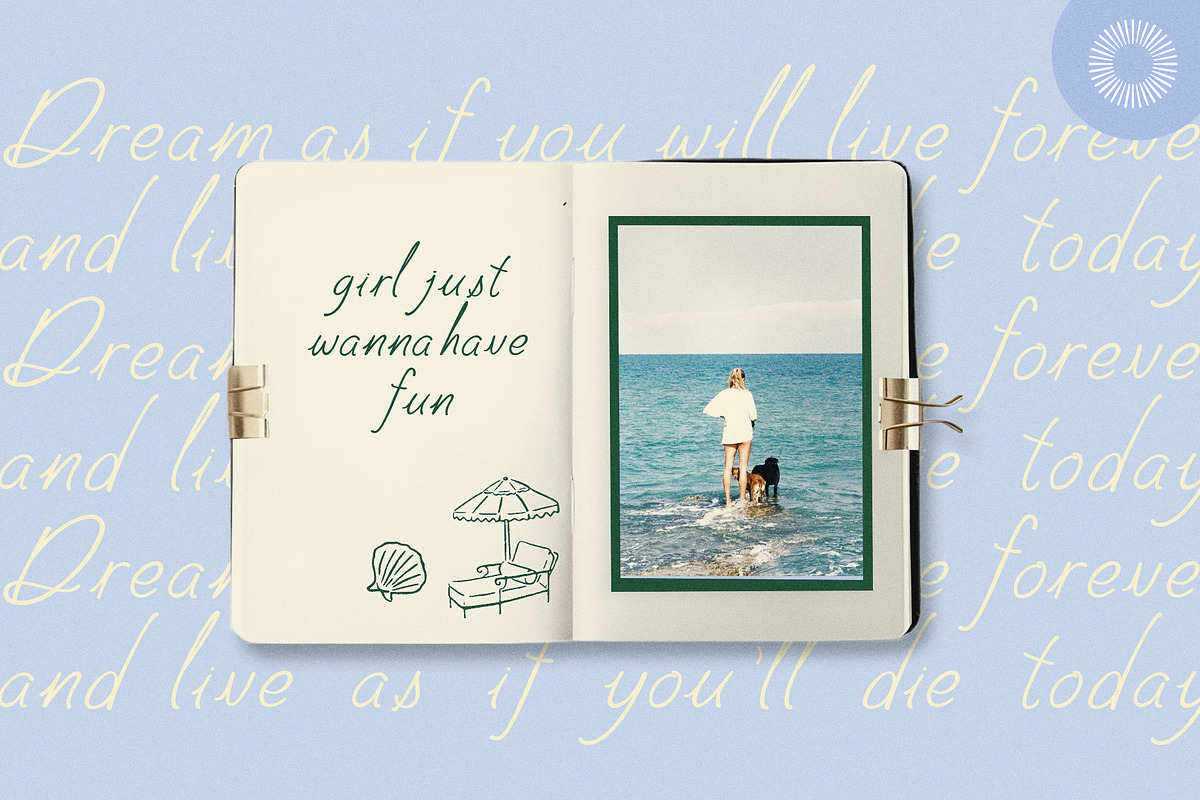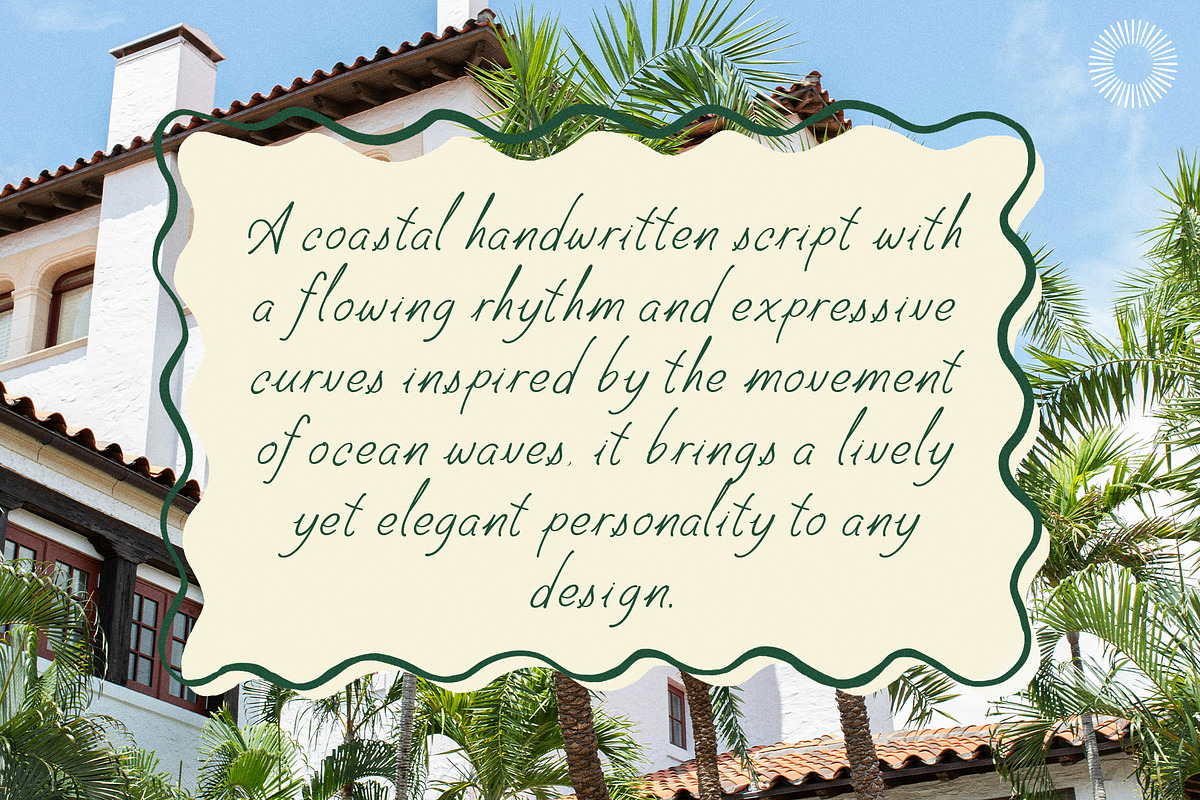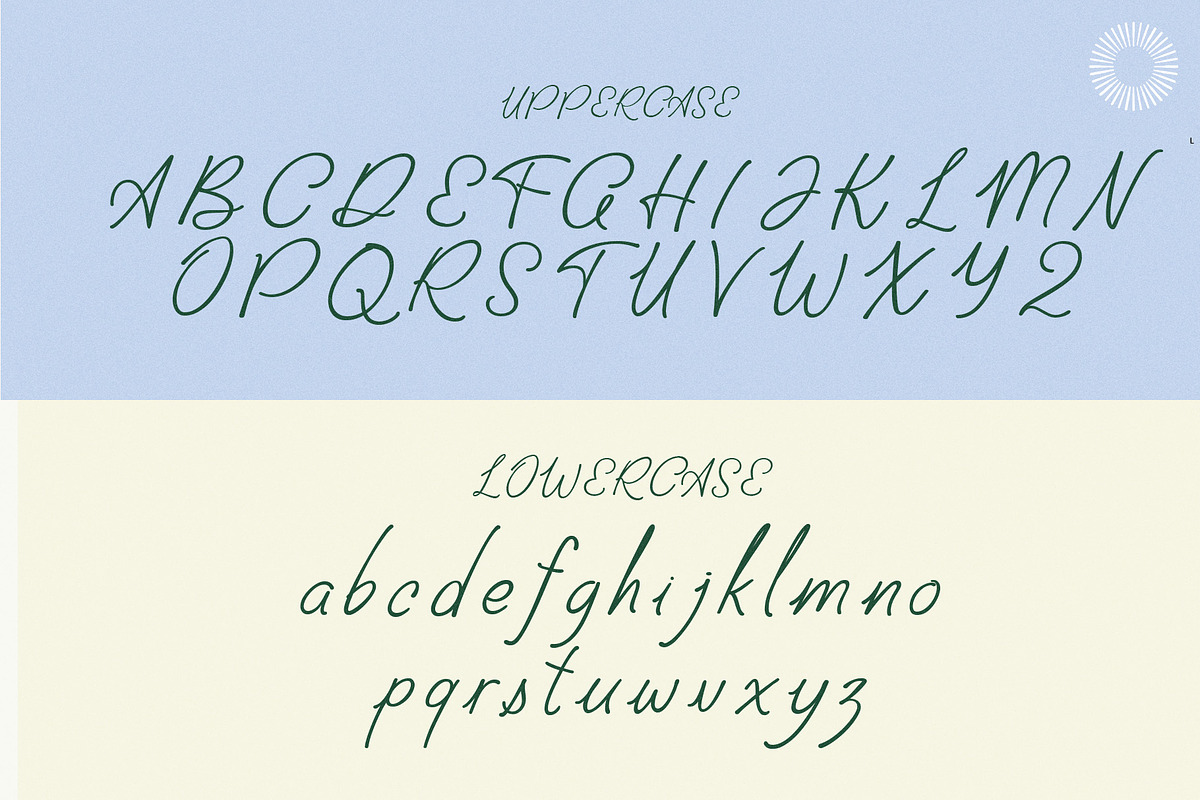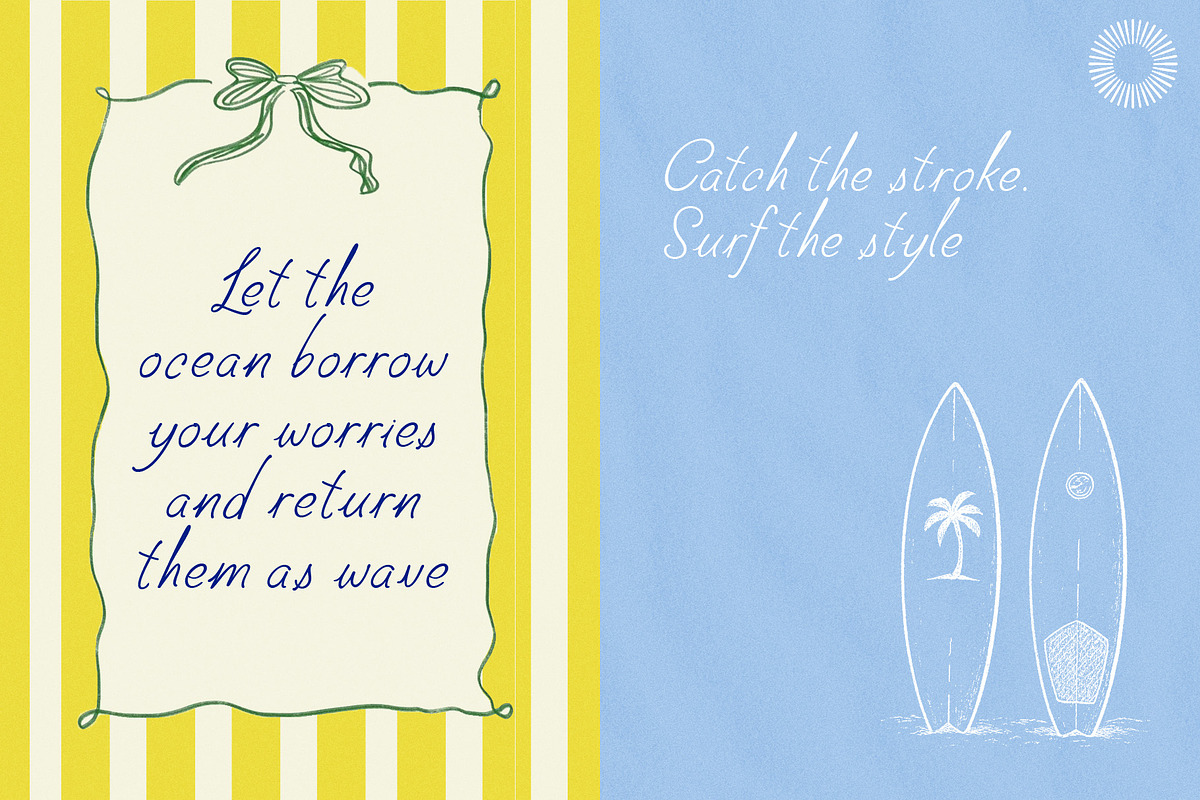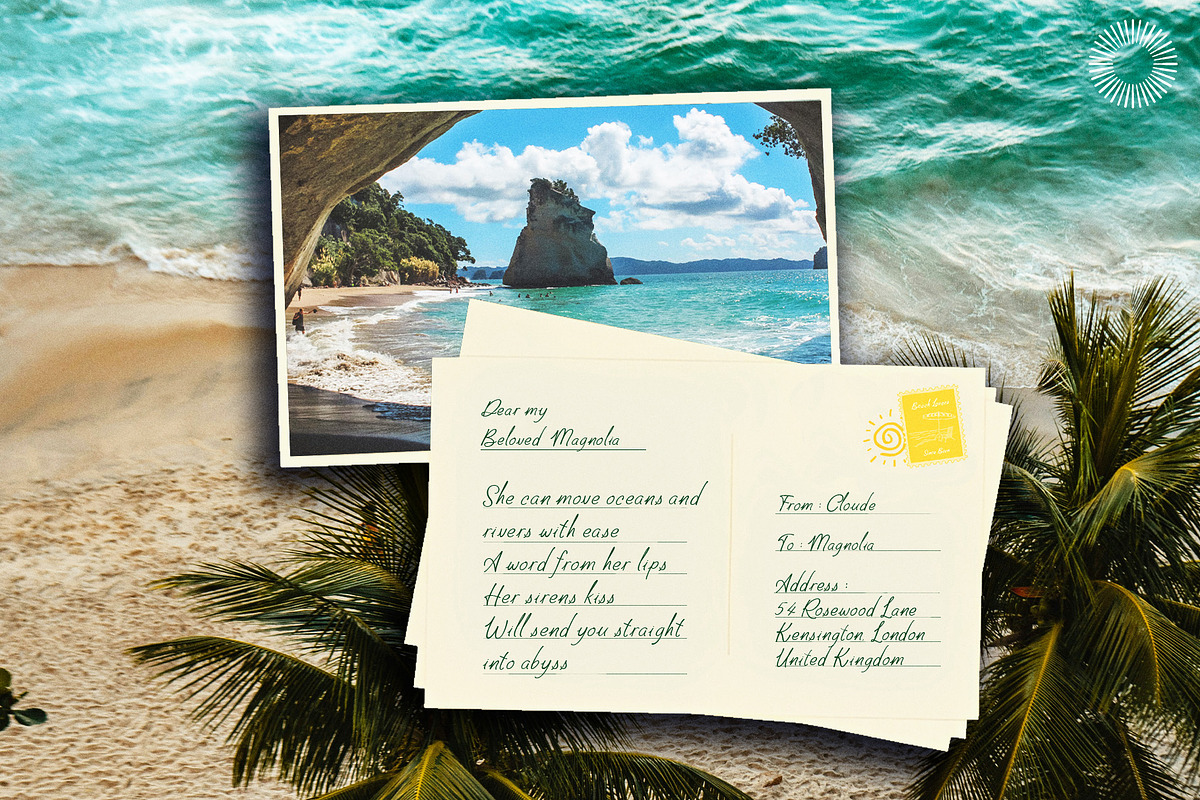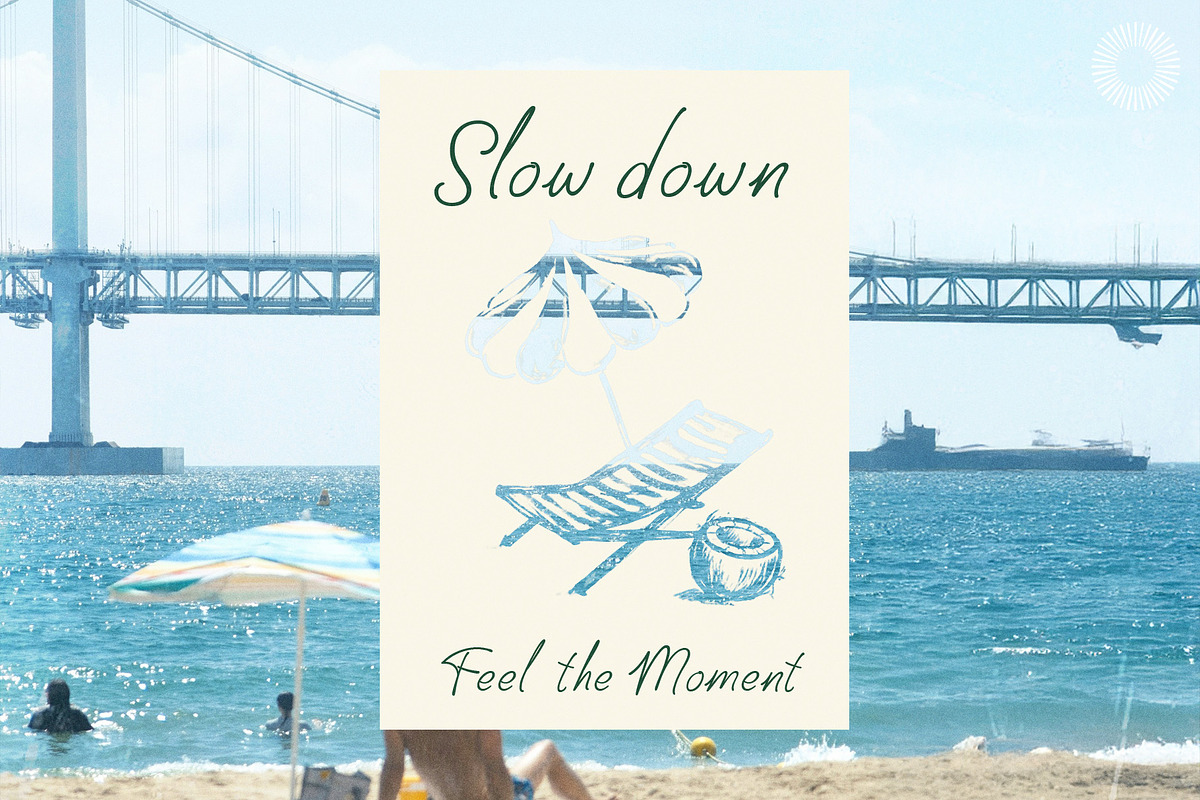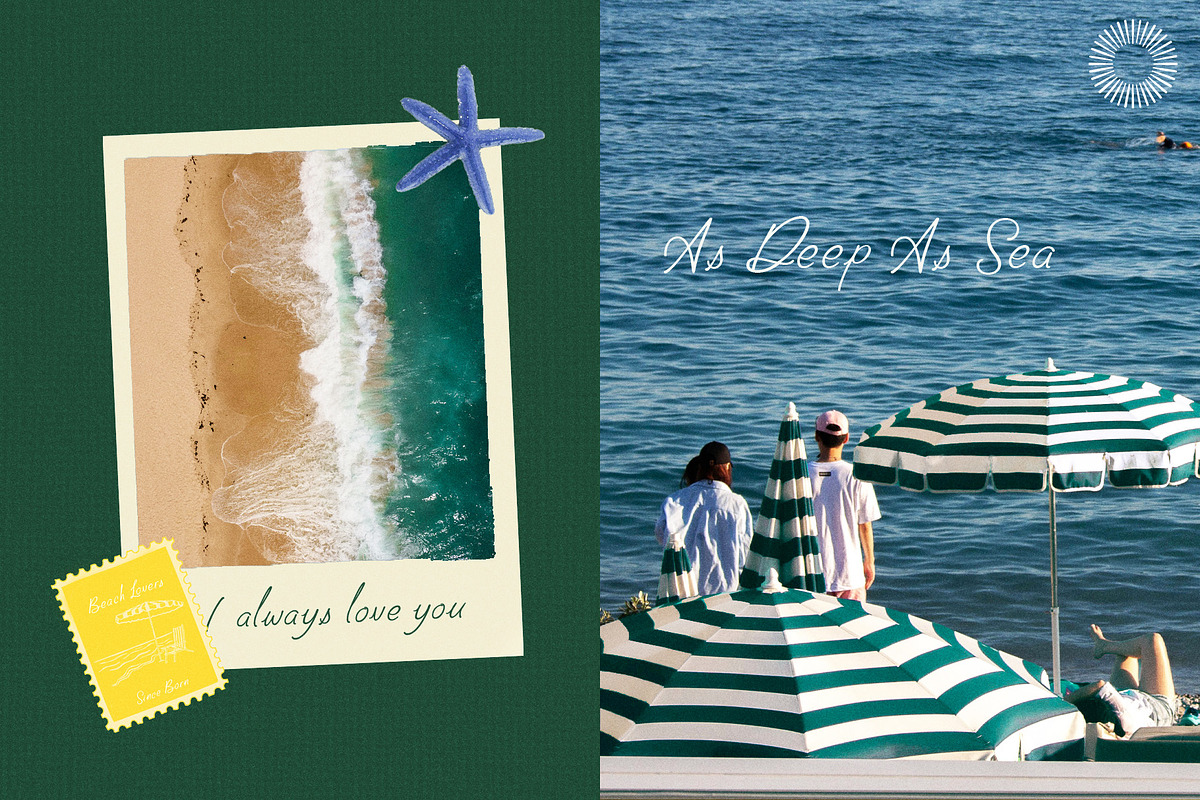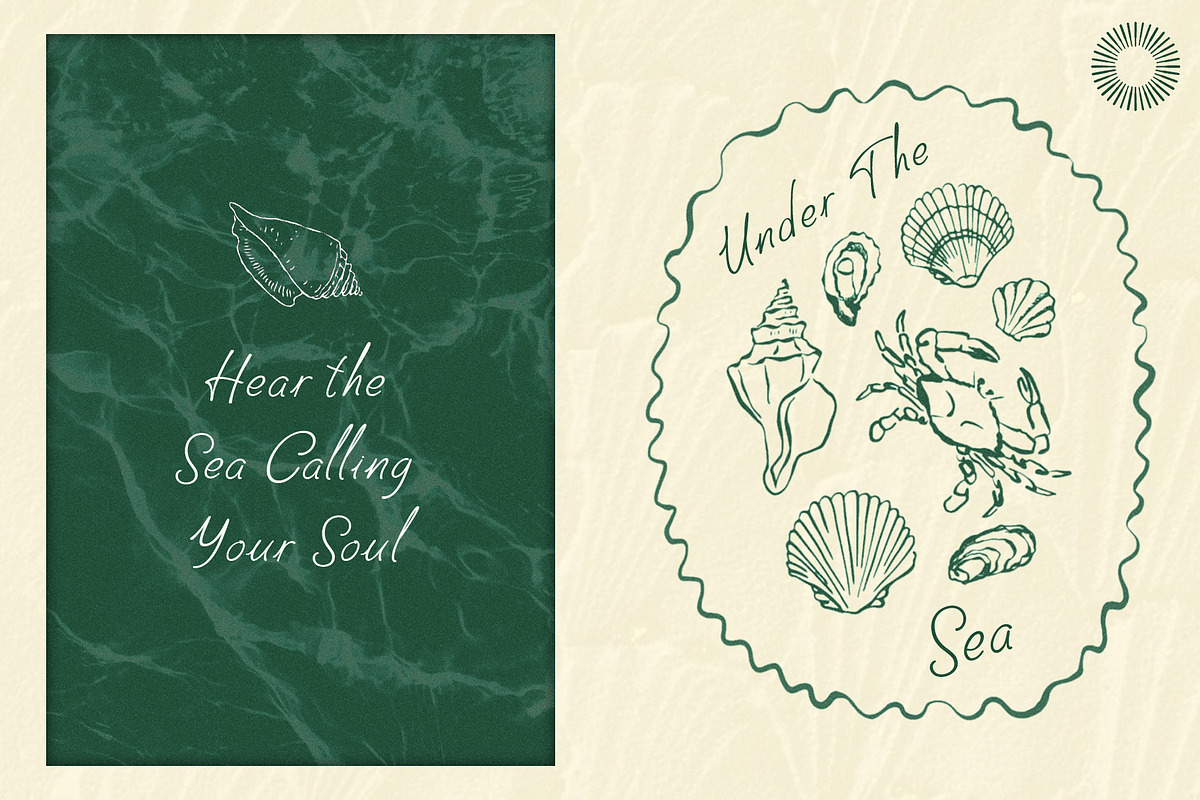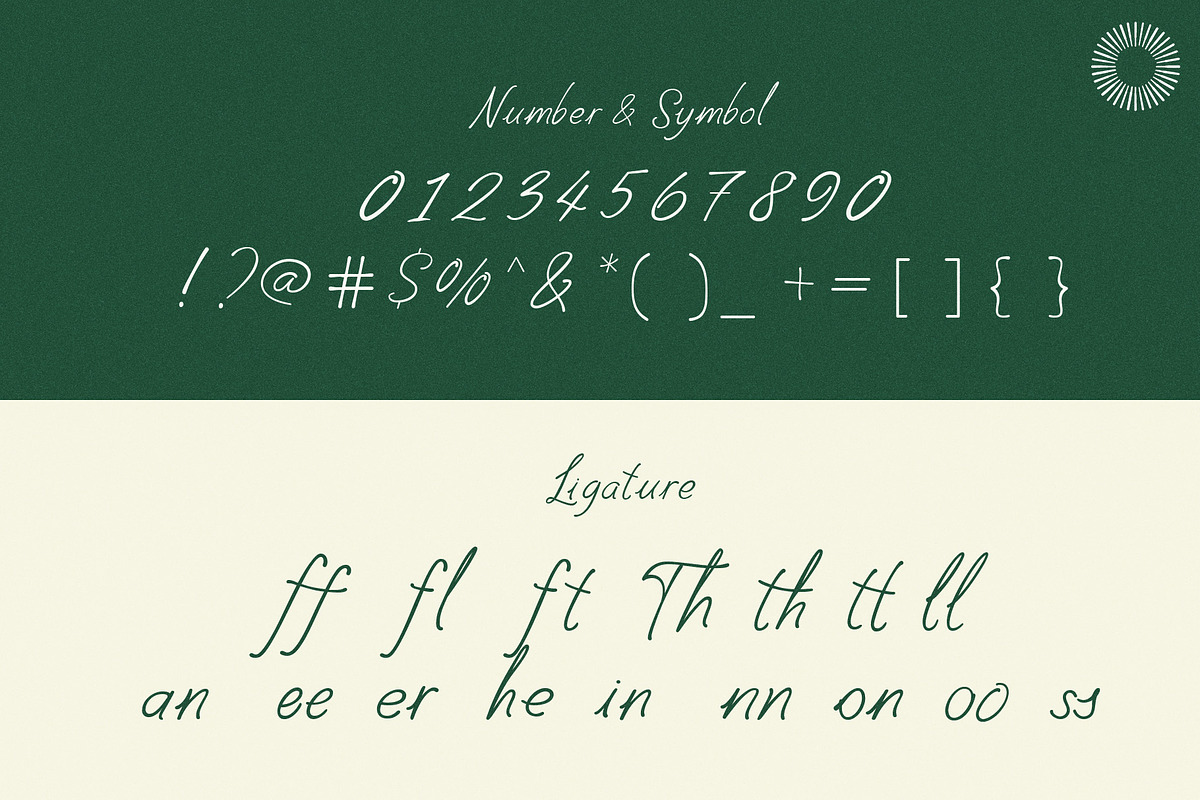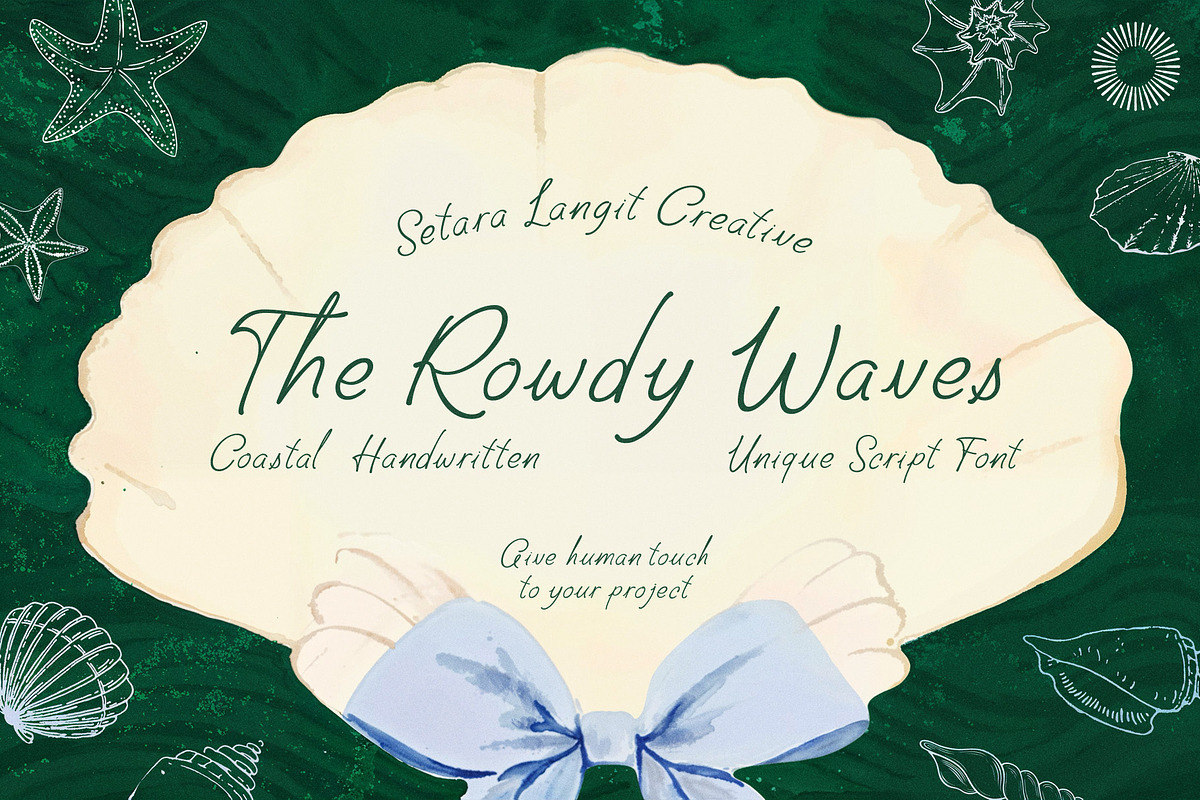
The Rowdy Waves| Coastal handwritten
The Rowdy Waves – Coastal Handwritten Script The Rowdy Waves is a handwritten script with a calm coastal character. Instead of chasing perfect curves, it keeps the natural rhythm and slight imperfections that make real handwriting feel warm and personal. The result is a script that reads softly, flows easily, and works across a wide range of visual styles. Whether you’re designing relaxed branding, packaging, social media graphics, or stationery, The Rowdy Waves adds an approachable touch without becoming overly decorative.
- Natural handwritten strokes
- Clean, gentle baseline movement
- Punctuation & standard symbols
Great For
- Coastal or seaside–inspired branding
- Boutique packaging
- Quotes, journals, and invitations
- Lifestyle and editorial layouts
- Logo signatures and mood boards
If you want a handwritten script that feels friendly, light, and human—without losing clarity—The Rowdy Waves is a dependable fit for your creative projects.